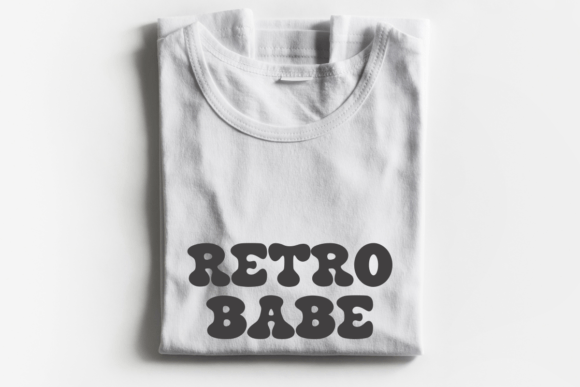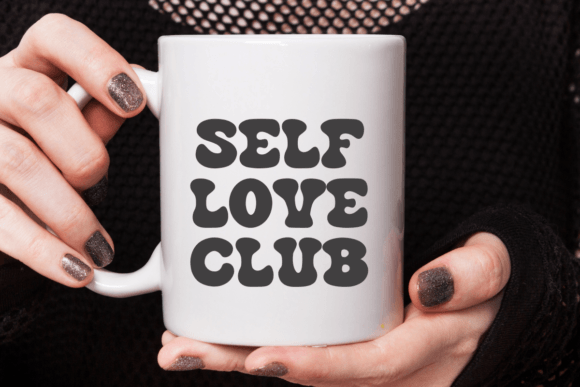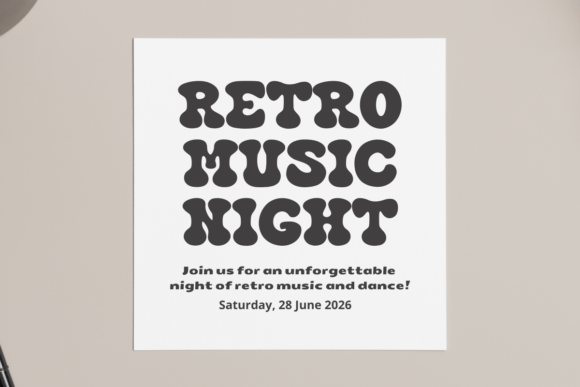
Introduction to Kinder Howdy Font
Remember the excitement of rummaging through your grandparents’ attic, uncovering vintage treasures that sparked your creativity? For designers, that thrill is now at your fingertips with the Kinder Howdy Font. This retro-styled, handcrafted font is a design resource that embodies the essence of authenticity and charm, perfect for breathing life into your creative projects.
Whether you’re crafting distinctive brand identities or working on crafty DIY projects, Kinder Howdy Font is your go-to companion. Its versatility makes it an ideal choice for various applications, from clothing designs to home decor items. With its unique curves and lines, Kinder Howdy Font lends an air of whimsy to any project, inviting you to unleash your creativity and experiment with new ideas.
Key Features of Kinder Howdy Font
- High-quality design: Kinder Howdy Font is a well-crafted font ideal for creative projects requiring a professional touch.
- Large character set: The font includes a comprehensive character set, making it suitable for a wide range of creative projects, from logos to typography-based designs.
- Perfect for signage and branding: Kinder Howdy Font’s friendly and approachable design makes it an excellent choice for signage, branding, and other creative projects requiring a welcoming atmosphere.
Honest Review: Kinder Howdy Font
- Unique design: The Kinder Howdy Font has a charming, rustic feel that sets it apart from more generic fonts.
- High quality: The font is clear and well-rendered, even at smaller sizes.
- Limited styles: The font comes in a single style, which may limit its versatility.
- No bold or italic options: If you need to emphasize certain text, you’ll need to use a separate font or create your own bold/italic versions.
Overall, the Kinder Howdy Font is a great addition to any designer’s toolkit. While it may have some limitations, its unique design and high quality make it a great choice for creative projects. I’m excited to see how it adds a touch of personality to my future designs.
Kinder Howdy Font
Designing with Kinder Howdy Font
Getting the Most Out of Kinder Howdy Font
To get the most out of the Kinder Howdy Font, experiment with different font sizes, colors, and styles. Use it in combination with other design resources to create unique and engaging designs. Don’t be afraid to push the boundaries of what’s possible with this versatile font.
Common Use Cases for Kinder Howdy Font
The Kinder Howdy Font is perfect for a variety of creative projects, including branding, marketing materials, and editorial design. Its high-quality design and transparent background make it an ideal choice for designers looking for a reliable and versatile font.